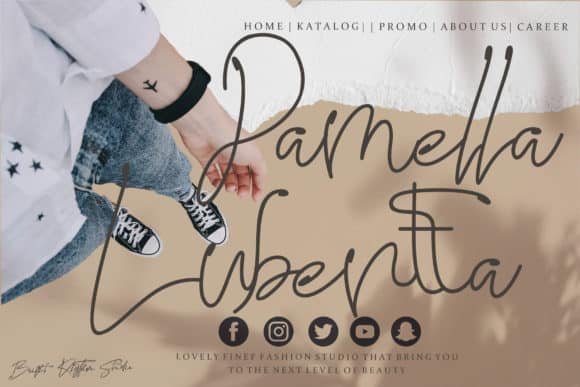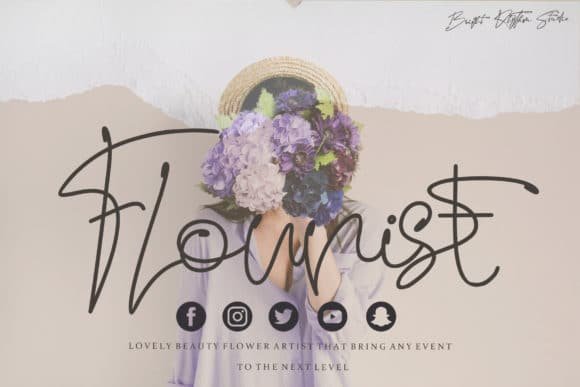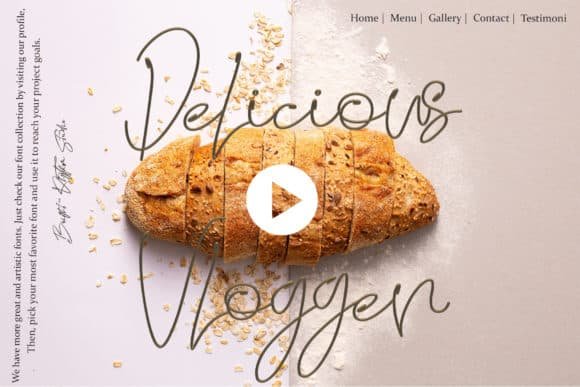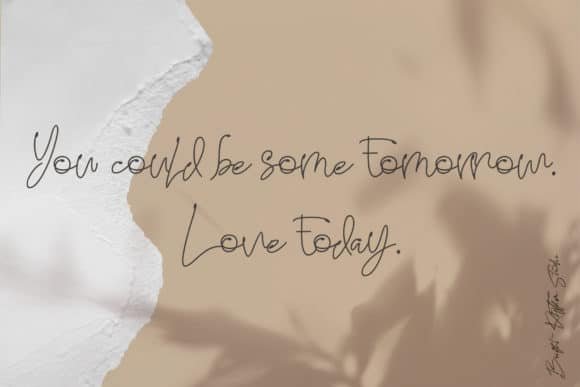
Gdynia Font
brightrhythmstudio
Gdynia is a thin, asymmetrical handwritten font. Its sweet and full of life style makes this font a wonderful choice for brightening up your designs.